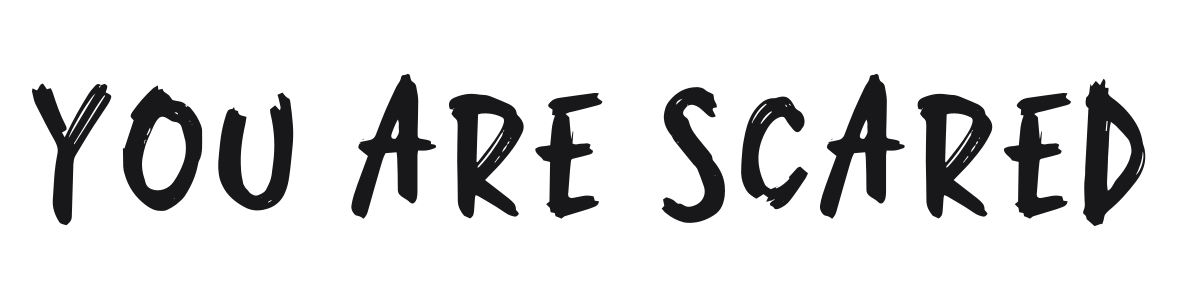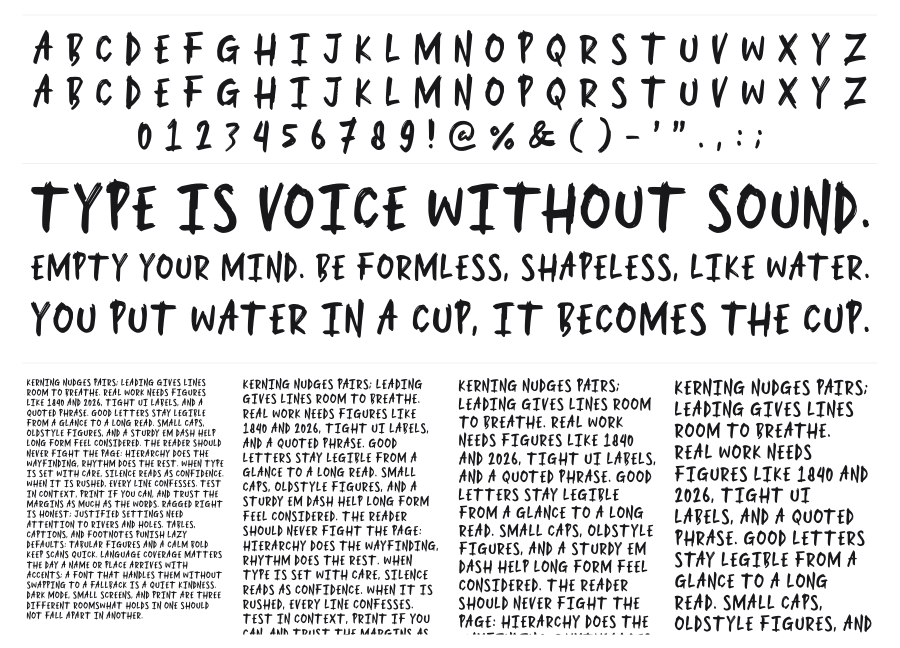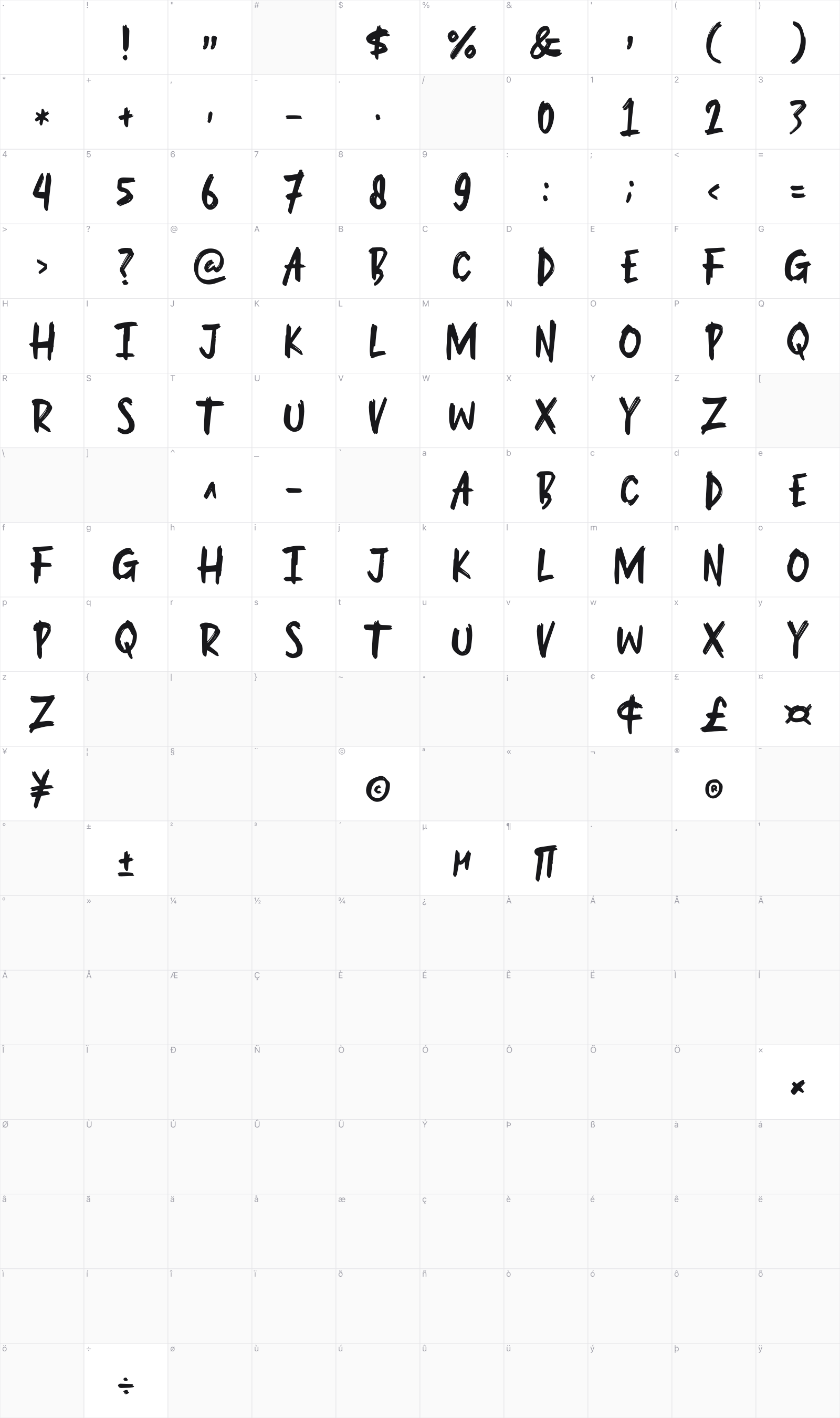
You Are Scared
You Are Scared is a heavy brush horror font by Khurasan with raw, splintered strokes that look like they were scraped across the page in a panic. The jagged terminals and irregular stroke weights give it a genuinely unsettling texture without tipping into parody. Strong for horror posters, Halloween branding, and any project that needs to feel dangerous.